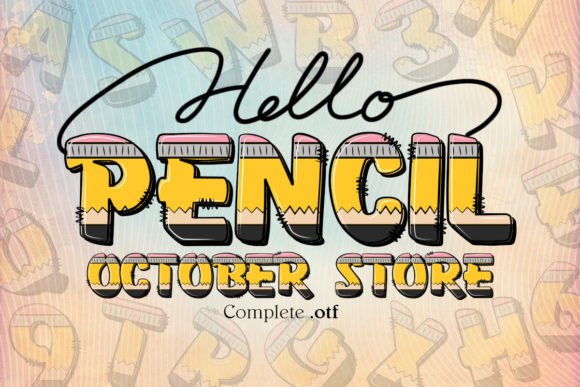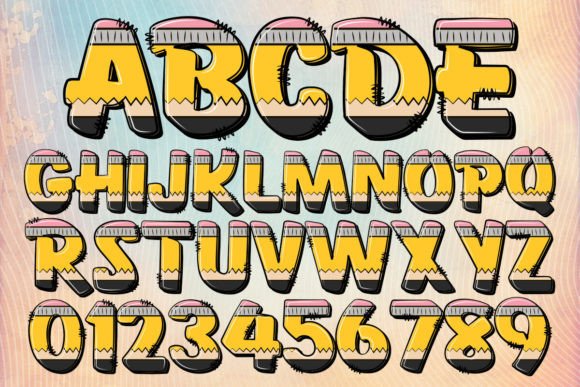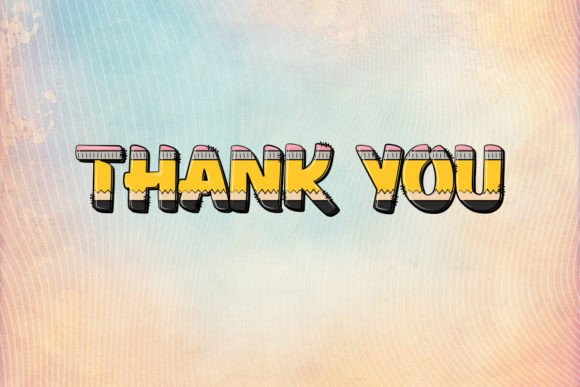
Pencil Font
Pencil a school font is often used in designs that aim to convey a playful or artistic feel, such as children’s books, posters, invitations, greeting cards, and more.